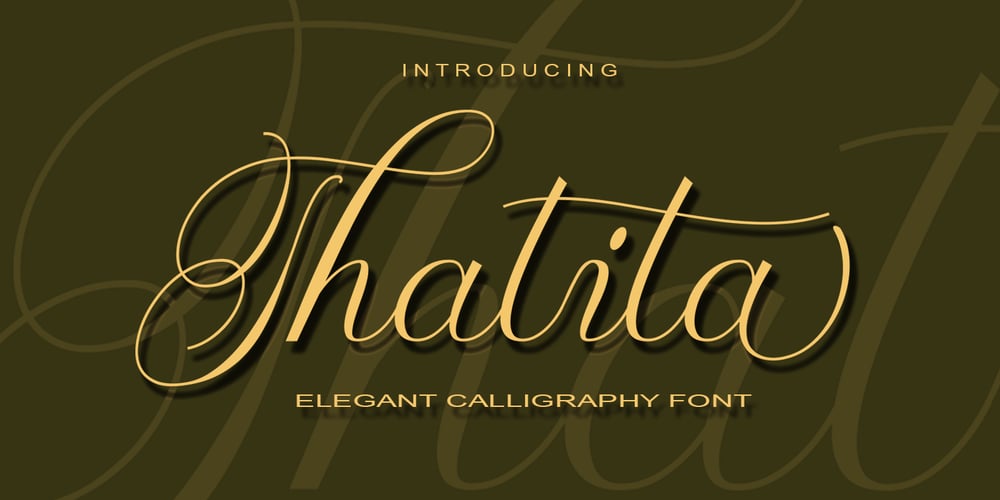
Thalita
Thalita font
Thalita Font Family was designed by Muhammad Rayyan and published by Slex Studio. Thalita contains 1 styles and family package options. Thalita is an elegant and luxurious calligraphy font. It looks beautiful on a variety of designs requiring a personalized style, such as wedding invitations, thank you cards, weddings, greeting cards, logos and so on. This font is PUA encoded which means you can access all of the glyphs and swashes with ease!